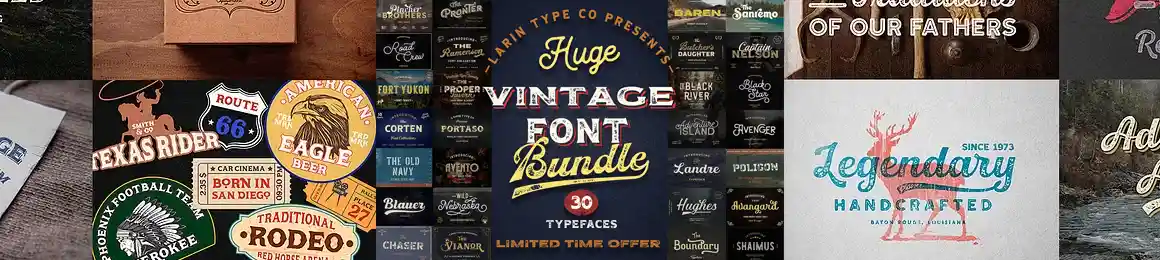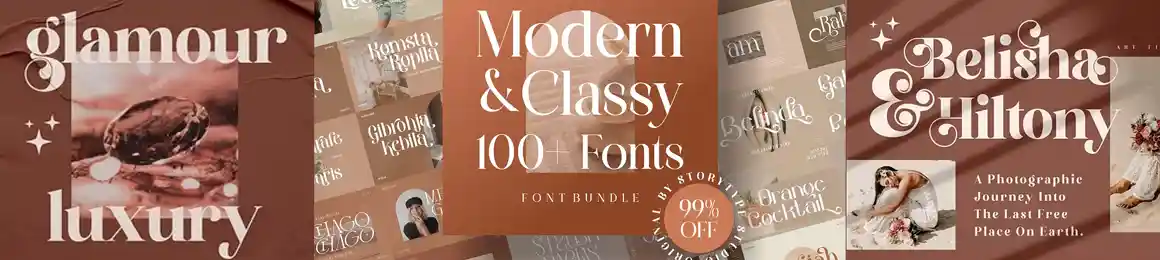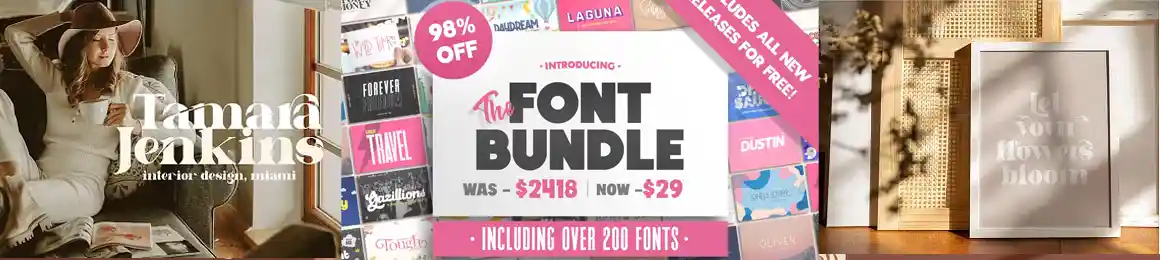
Choosing the best fonts for Etsy sellers in 2026 is one of the highest-leverage decisions you can make for your shop. The right font instantly communicates your brand, attracts the right buyers, and makes your listings look polished and professional. However, with thousands of options available, most Etsy sellers waste hours searching and still end up with fonts that feel generic. A commercially licensed font bundle from Creative Market solves this completely — giving you dozens of hand-picked typefaces designed specifically for product listings, branding, and digital downloads.
In this guide, we cover five of the best font bundles available on Creative Market right now, spanning every style Etsy sellers need — script, geometric sans, vintage display, modern, and mega value bundles.
What this guide covers: the best font bundles for Etsy sellers in 2026 — script handwriting, geometric sans serif, vintage display, modern, and huge value packs. All include a commercial licence covering Etsy product listings and digital downloads.
Best Fonts for Etsy Sellers 2026 — Quick Comparison
| Bundle | Style | Best For | Licence |
|---|---|---|---|
| Modern Hand-drawn Trendy Font Bundle | Script / Handwritten | Boho, lifestyle & greeting cards | ✓ Commercial |
| Franie Geometric Sans Family | Geometric Sans Serif | Modern branding & minimalist shops | ✓ Commercial |
| Huge Vintage Font Bundle | Vintage / Display | POD shirts, mugs & retro designs | ✓ Commercial |
| Mega Bundle — 100 Modern Fonts | Modern / Mixed | Digital products & versatile branding | ✓ Commercial |
| The HUGE Font Bundle (98% OFF) | All Styles | Every Etsy niche — best value | ✓ Commercial |
What Makes the Best Fonts for Etsy Sellers?
Not every font works for Etsy. Before buying, look for these four qualities to ensure the font earns its place in your shop.
Multiple weights and styles: A font family with regular, bold, italic, and light weights gives you far more design flexibility. Consequently, one font family can serve your listing titles, product descriptions, and branding elements without looking inconsistent.
Readability at small sizes: Etsy listing thumbnails are small. Therefore, avoid overly decorative fonts for body text — save the elaborate scripts for headlines and use clean sans serifs for supporting text.
5 Best Font Bundles for Etsy Sellers
Here are the five font bundles that offer the best combination of quality, versatility, and commercial licensing for Etsy sellers right now.
1. Modern Hand-drawn Trendy Font Bundle — Best Script Font for Etsy
Script and handwritten fonts are consistently among the most searched font styles on Etsy. The Modern Hand-drawn Trendy Font Bundle by Ayya Studio captures the relaxed, authentic feel that buyers associate with handmade and artisan brands. Furthermore, the hand-drawn quality gives your listings a warm, personal touch that distinguishes your shop from mass-market competitors.
This bundle is particularly well suited to Etsy sellers in the boho lifestyle, greeting card, journaling, and wellness niches. Additionally, the trendy modern aesthetic means these fonts work equally well for digital downloads, printable planners, and social media branding kits.
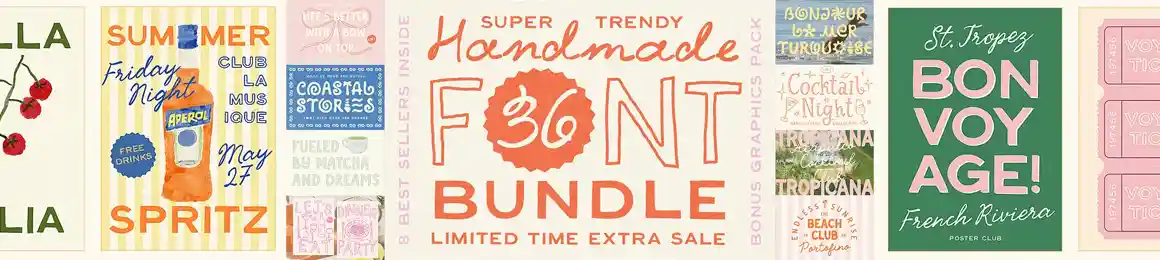
Pro tip: Pair a hand-drawn script font with a clean geometric sans serif for your Etsy listing titles. The contrast between the two styles creates a professional, editorial look that converts browsers into buyers.
2. Franie Geometric Sans Family — Best Sans Serif for Modern Etsy Shops
Geometric sans serif fonts are the backbone of modern brand identities — and the Franie Geometric Sans Family by ThatThat Creative is one of the cleanest examples available on Creative Market. Moreover, the geometric structure makes it highly readable at all sizes, from large listing headers down to small price labels and watermarks.
This font family is ideal for Etsy sellers with minimalist, Scandinavian, or contemporary branding. In particular, it works exceptionally well for digital planners, printable wall art with quotes, and shop branding kits. As a result, your Etsy shop develops a consistent, cohesive identity that feels premium and intentional.
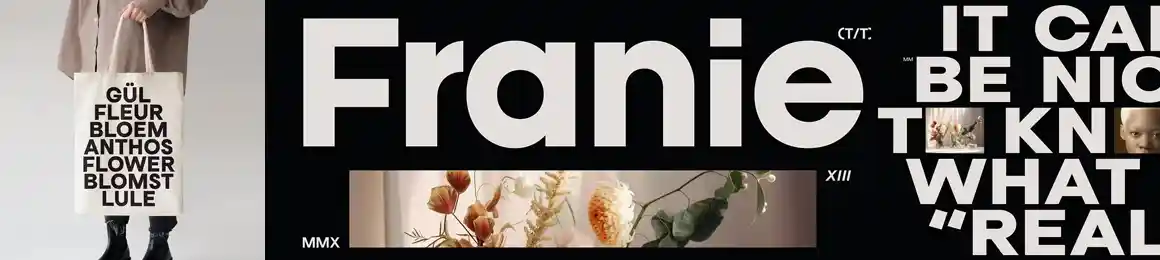
3. Huge Vintage Font Bundle — Best Display Font for POD & Retro Shops
Vintage and retro aesthetics are perennially popular on Etsy, particularly in the print-on-demand and wall art categories. The Huge Vintage Font Bundle by Pasha Larin delivers an extensive collection of display typefaces with authentic vintage character — rough edges, hand-pressed textures, and bold letterforms that look stunning on t-shirts, mugs, tote bags, and retro-style posters.